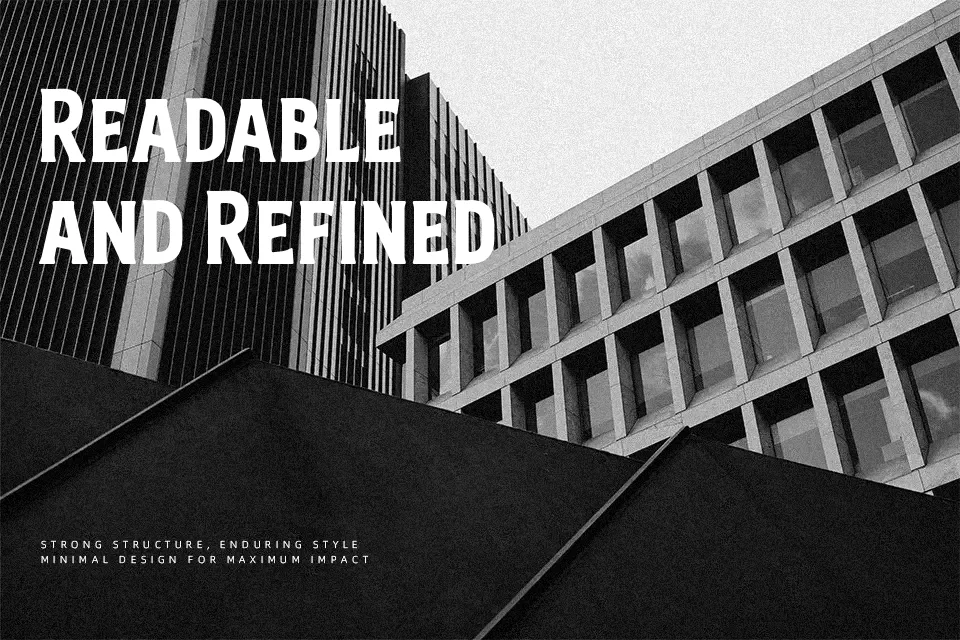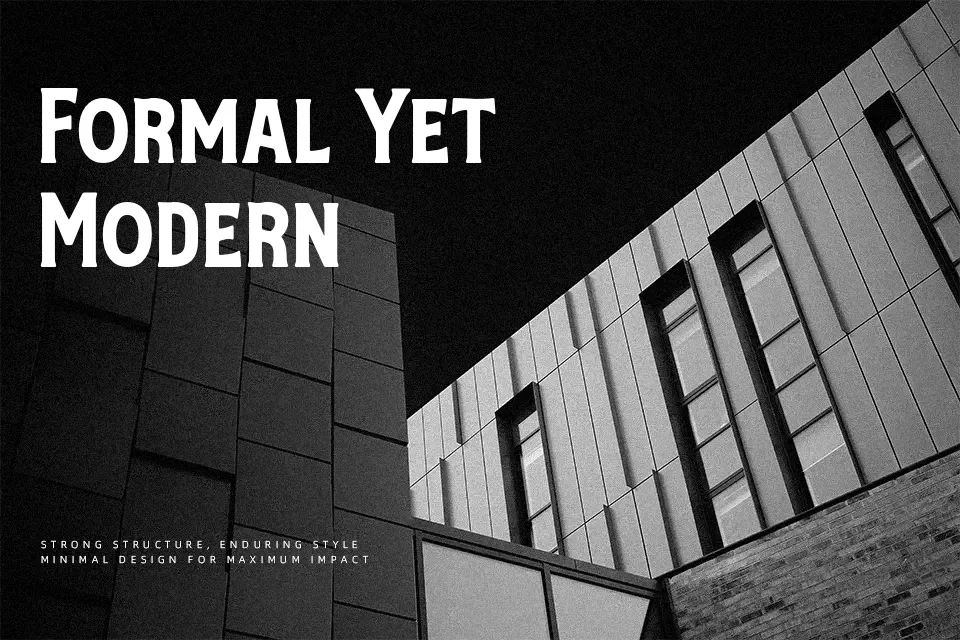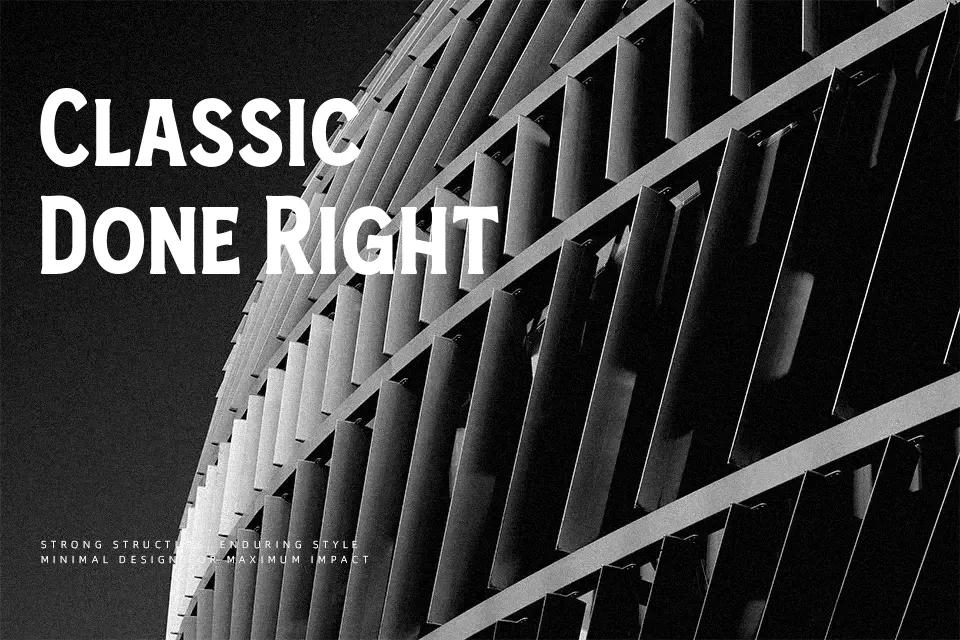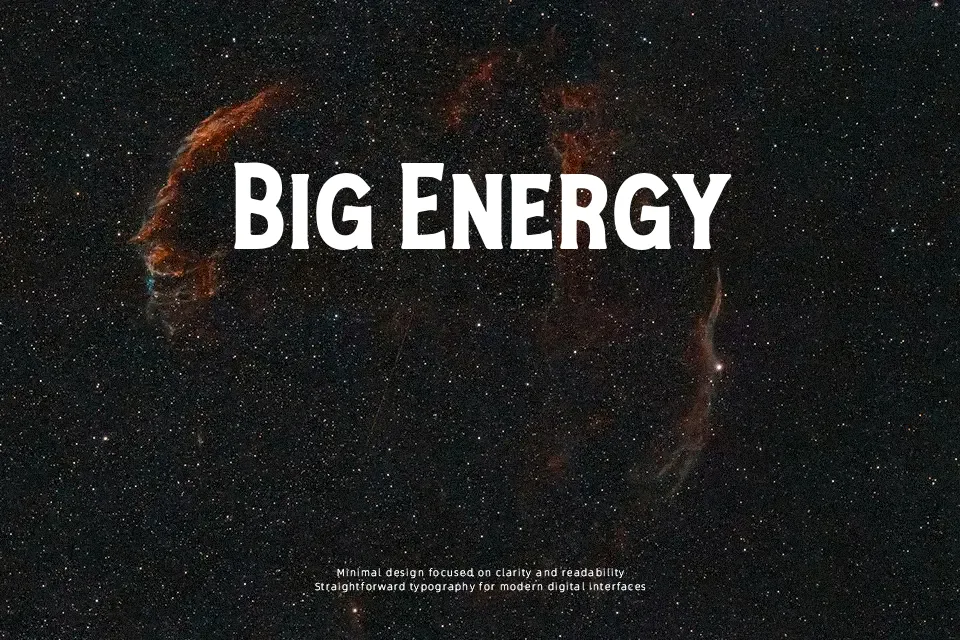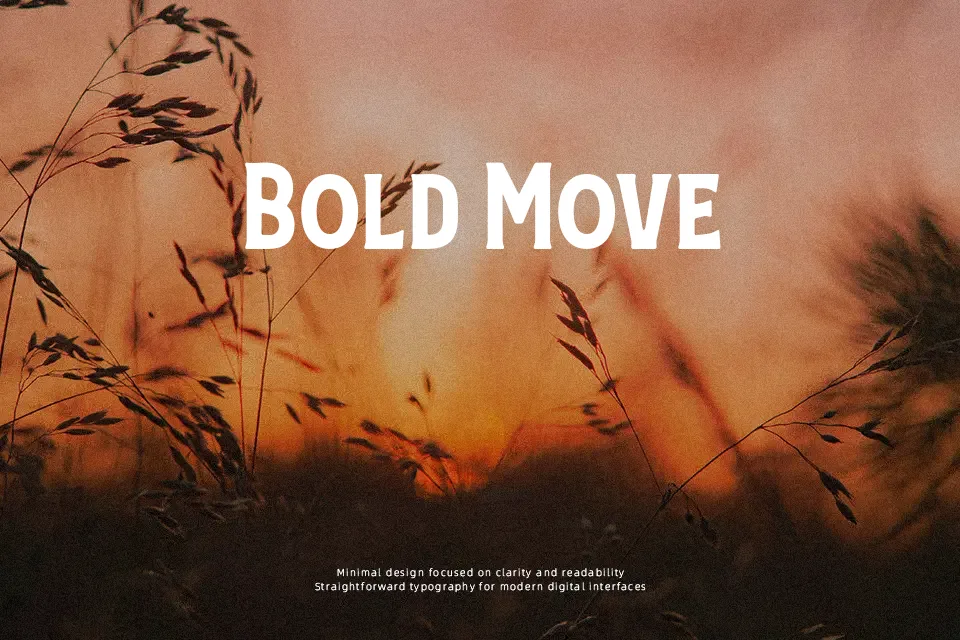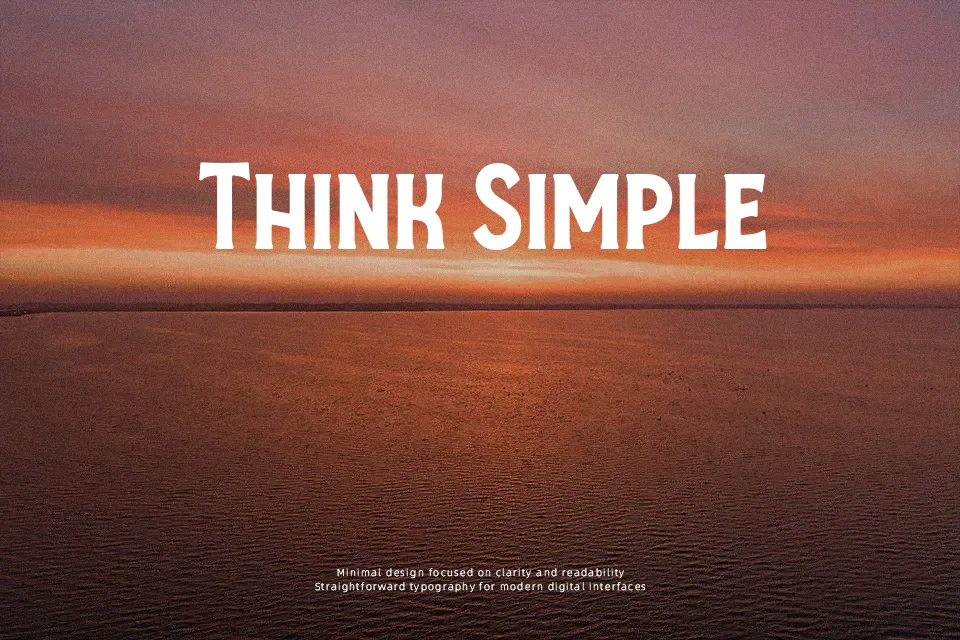
Valegan Font
Designed by Letterhend Studio
Valegan Font features robust display letterforms defined by pronounced stroke weight, flared decorative terminals, and balanced character widths. Moderate stroke contrast and compact horizontal spacing give the typeface an immediate vintage presence across titles and badge emblems. Letter proportions remain consistent across uppercase and lowercase sets, ensuring crisp recognition in prominent headlines and merchandise graphics. Fine decorative contours lose visual definition at tiny point sizes, making the typeface less suitable for long paragraph text. The design provides dependable graphic impact whenever isolated display settings demand an authentic mid-century aesthetic.
Best For: vintage product packaging, apparel graphic prints, poster display headlines, craft brewery labels
Not Ideal For: long paragraph text, mobile interface body copy, dense editorial layouts, legal documents